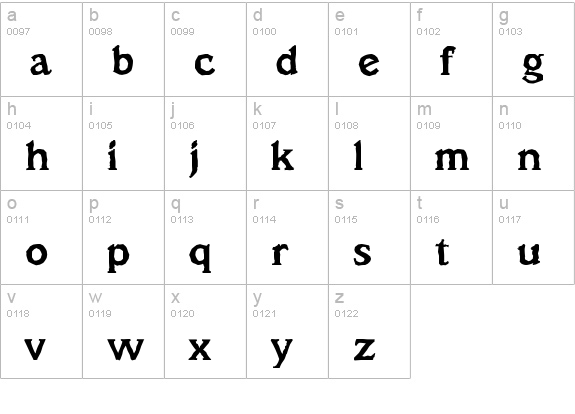
VeracruzAntique-Bold Font Details
VeracruzAntique-Bold is a strong, high-contrast variant in the VeracruzAntique typeface family \xE2\x80\x94 well suited to headlines, attention-grabbing titles, and strong calls-to-action.